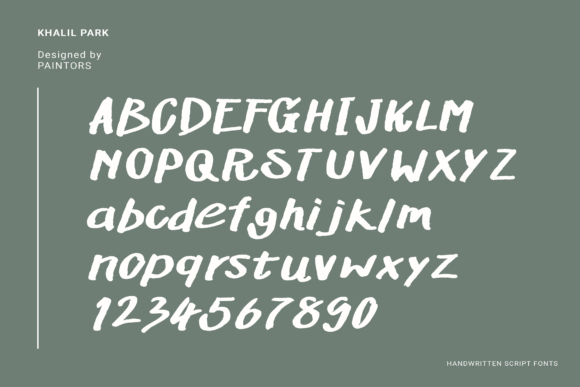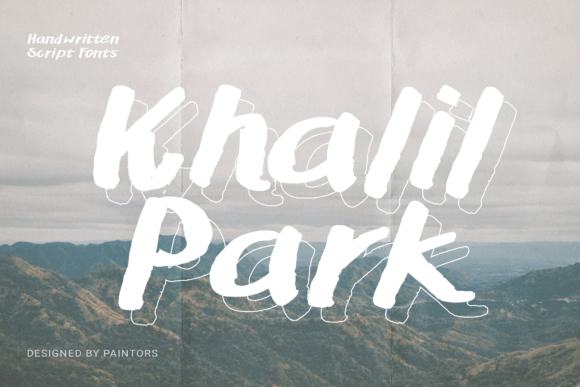
Introduction to Khalil Park Font
Have you ever been working on a creative project, pouring your heart and soul into it, only to feel like something is missing? Maybe it’s the perfect font to bring your design to life. That’s where the Khalil Park Font comes in – an elegant script with a handmade calligraphy style that’s sure to elevate your next project.
As a designer, you know how crucial it is to have access to high-quality design resources like the Khalil Park Font. With its beautiful, flowing lines and sophisticated feel, this font is a valuable addition to any designer’s toolkit. Whether you’re working on a branding project, a wedding invitation, or a social media graphic, the Khalil Park Font is a great choice to make your designs stand out.
Key Features of Khalil Park Font
- Transparent background, making it suitable for use on any background
- Unique, elegant design with a touch of sophistication
- High-resolution font, suitable for print and digital use
- Perfect for designers, artists, and anyone looking for a high-quality font for their creative project
Honest Review: Khalil Park Font
As a designer, I’m always on the lookout for high-quality design resources to enhance my creative projects. Recently, I came across the Khalil Park Font, and I’m excited to share my honest review with you.
- Unique and elegant design aesthetic
- High-resolution font files for crisp output
- Transparent background option for seamless integration
- Limited character set, may not be suitable for complex texts
- No bold or italic font styles available
In terms of overall impression, the Khalil Park Font is a beautiful addition to any design project. Its elegant design aesthetic and high-quality font files make it a great choice for creative projects that require a touch of sophistication. However, designers should be aware of its limitations and consider these factors before incorporating it into their design workflow.
The Khalil Park Font is ideal for a variety of creative projects, including social media graphics, presentations, and marketing materials. Its high-quality design and transparent background make it a versatile choice for designers and non-designers alike.
Compared to Khalil Park Font, Aleo has a more refined and polished look, making it suitable for high-end designs. While Khalil Park Font has a more playful feel, Aleo is ideal for projects that require a more serious and professional tone.